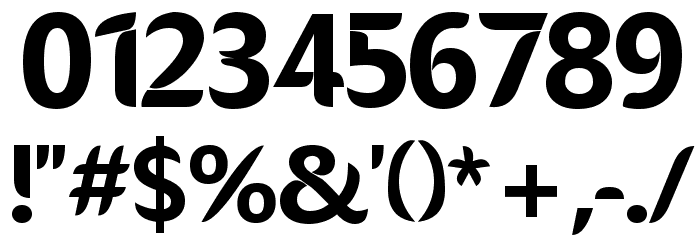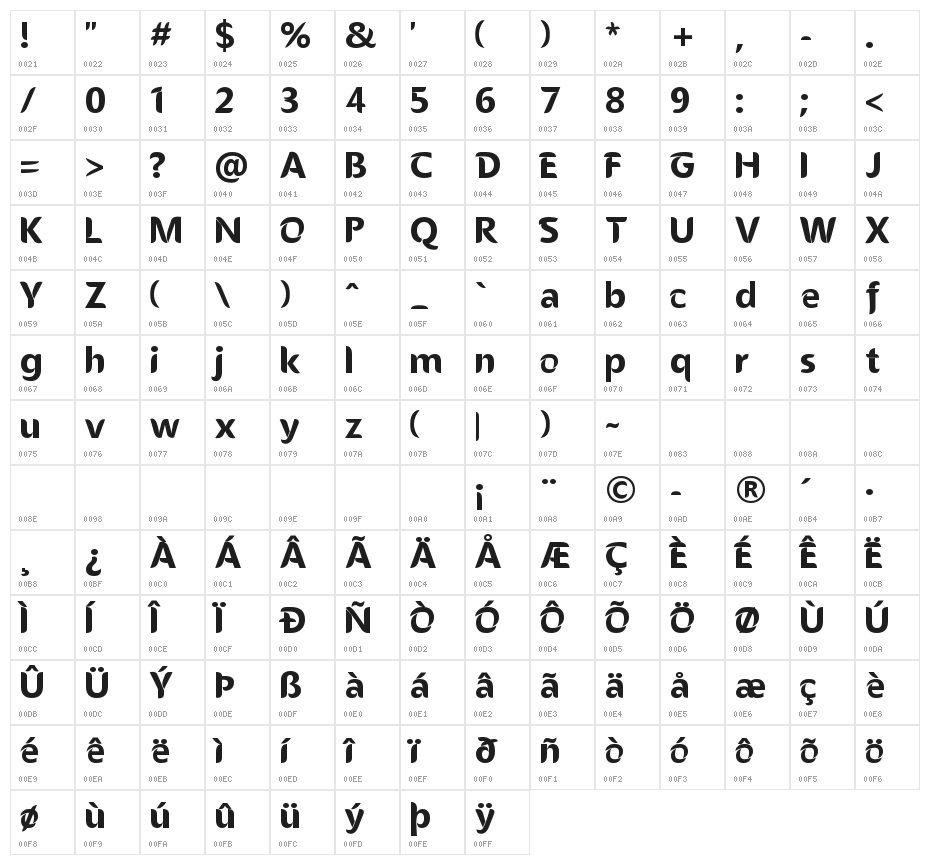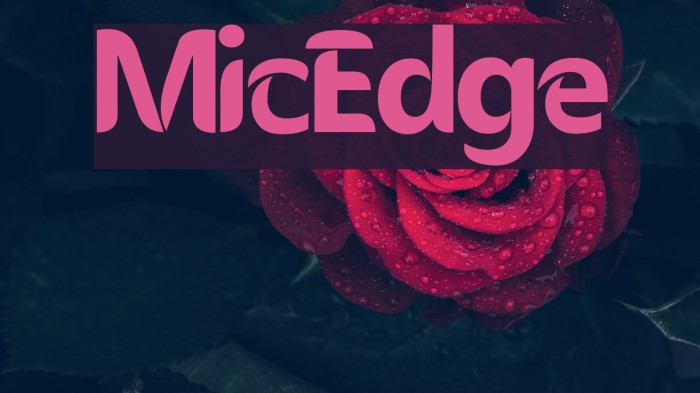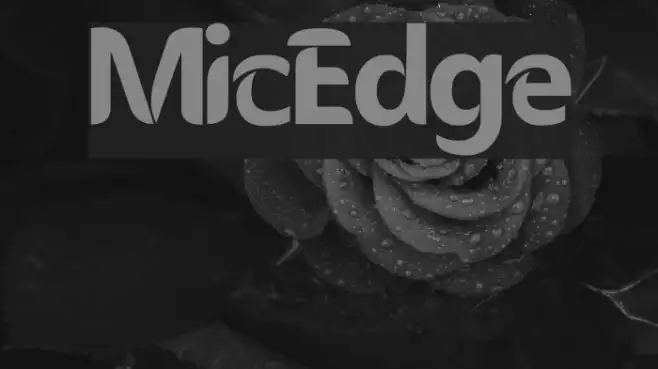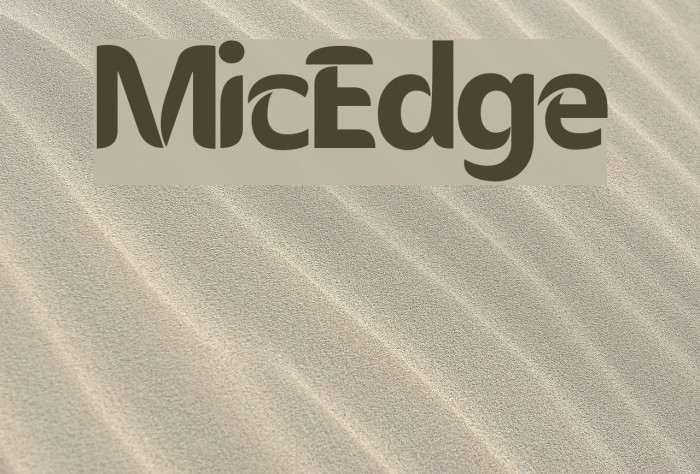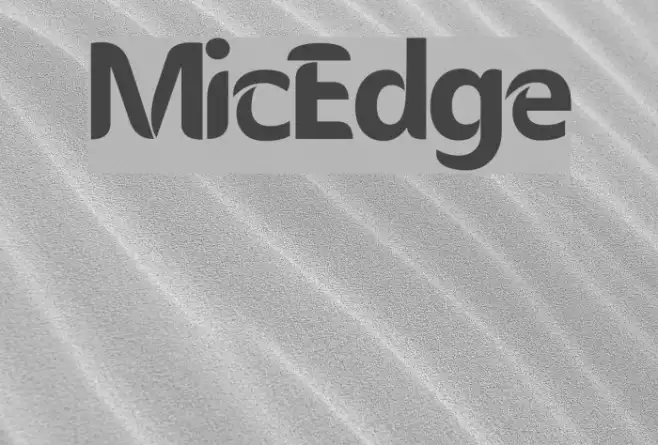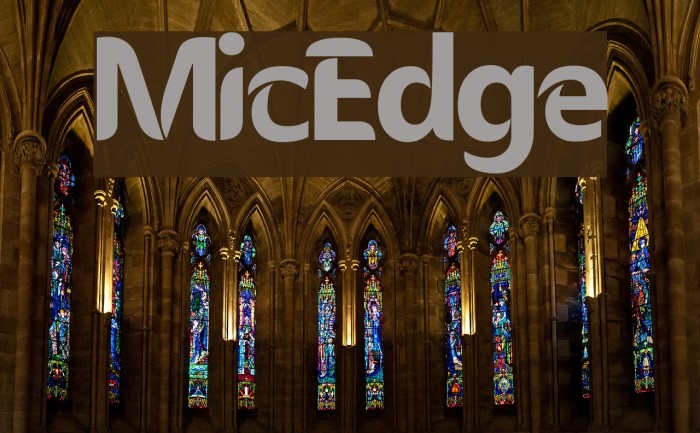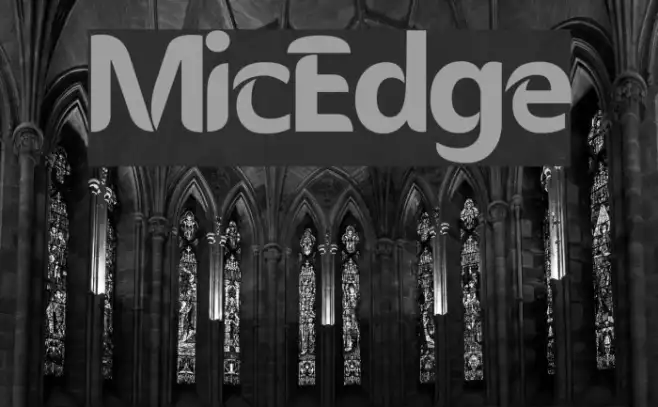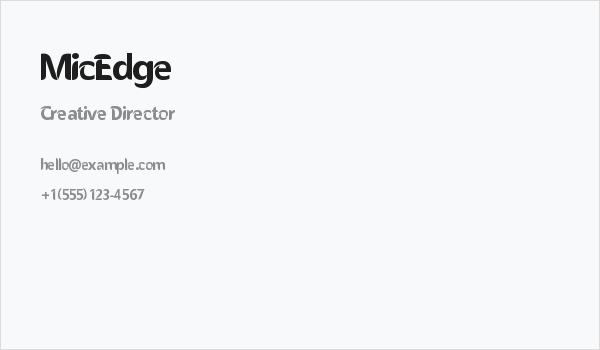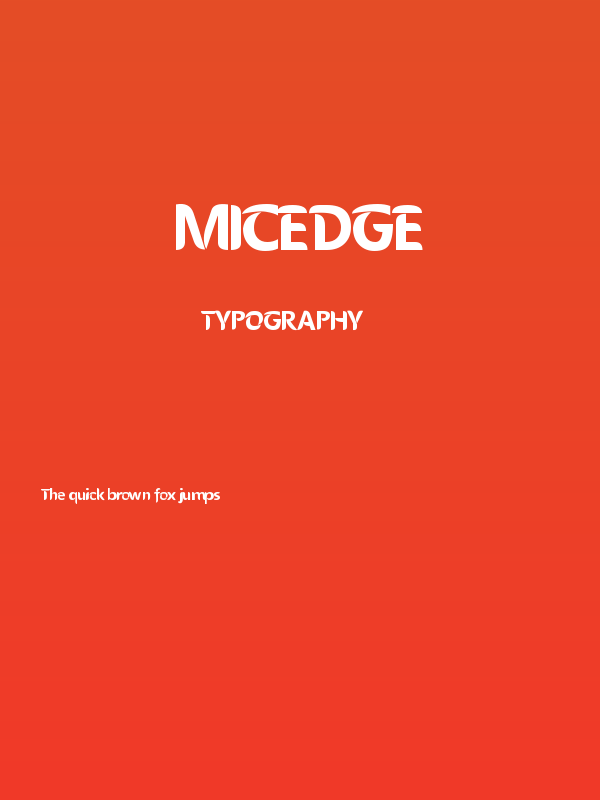
MicEdge Font
MicEdge Description
This font features a bold and dynamic design with a modern flair. The characters are crafted with a unique blend of geometric shapes and smooth curves, creating a visually striking appearance. The uppercase letters exhibit a strong presence with their thick strokes and angular cuts, while the lowercase letters maintain a consistent style with rounded edges and a slightly condensed form. The numerals are bold and clear, ensuring readability. Special characters are designed to complement the overall aesthetic, adding to the font's versatility. This font is ideal for making a statement in any design project.